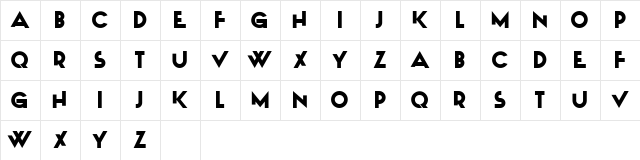
Explosion Book Bold Free Font
Explosion Book Bold
Design Context for Explosion
Explosion is a composed and adaptable typeface that performs quietly and consistently across a wide range of design contexts. Its bold stroke weight gives it real presence on the page.